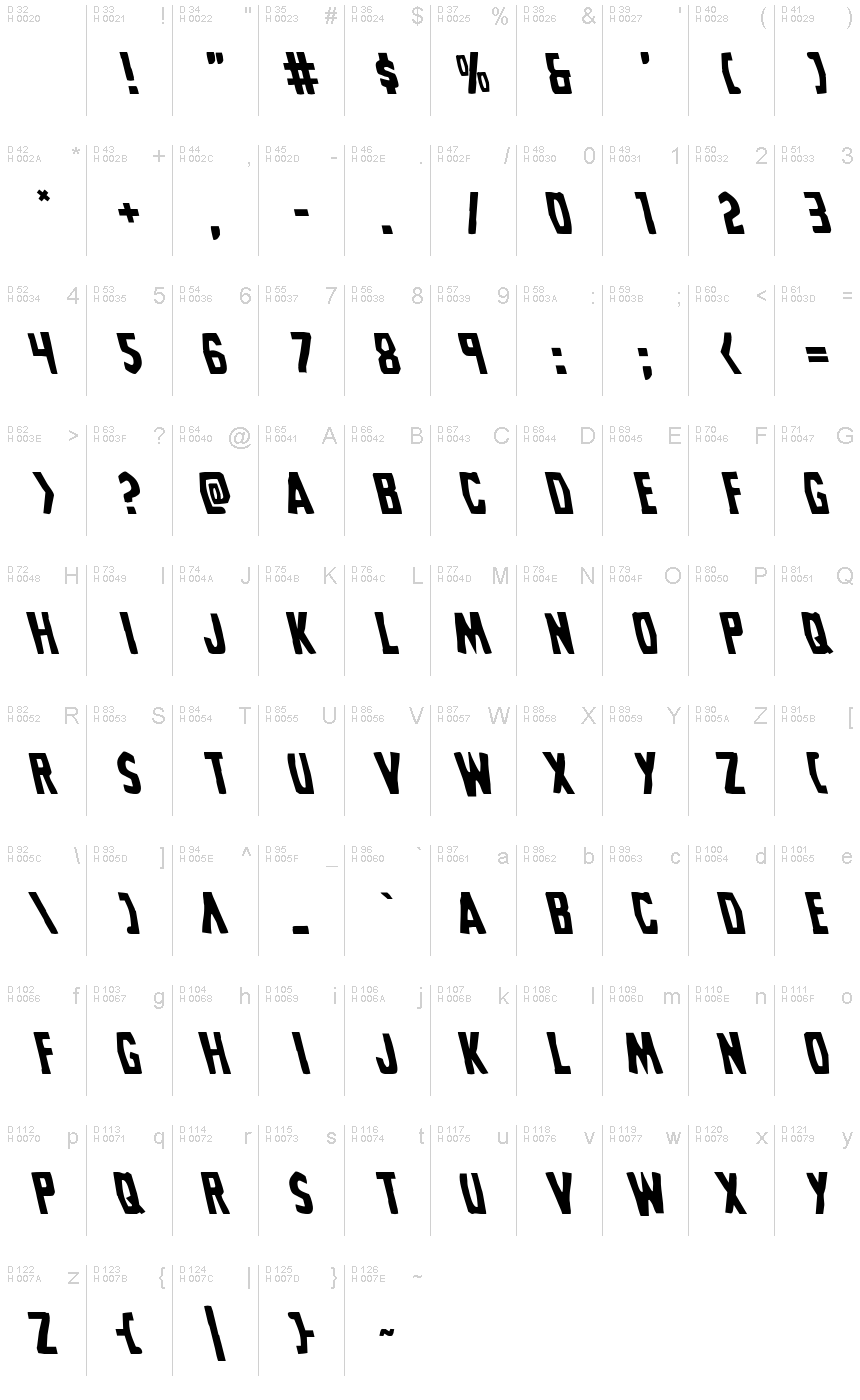
Grim Ghost Leftalic, designed in 2024 by Iconian Fonts, is a free cartoon display font with towering, warped capitals. Its dense shapes bend and pinch unpredictably, with sharp cuts, lopsided joins, uneven widths, and a pronounced leftward shove. The overall silhouette stays deliberately unruly.
Monster comedy is its clearest territory, making the lettering apt for horror posters, Halloween event graphics, and game title screens. The exaggerated distortion also suits novelty packaging and music merchandise, especially when the artwork draws on ghosts, creatures, or gleefully overdone B-movie scares.